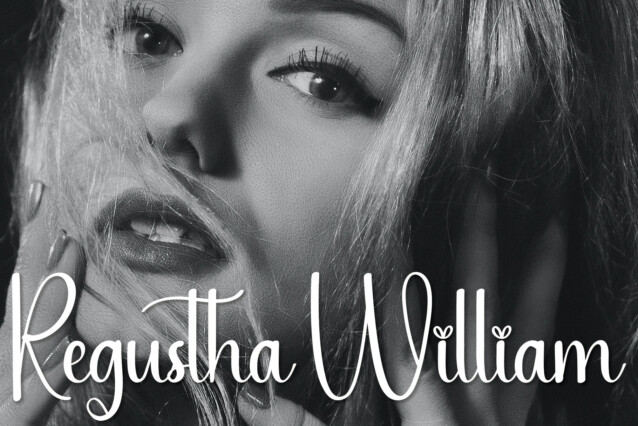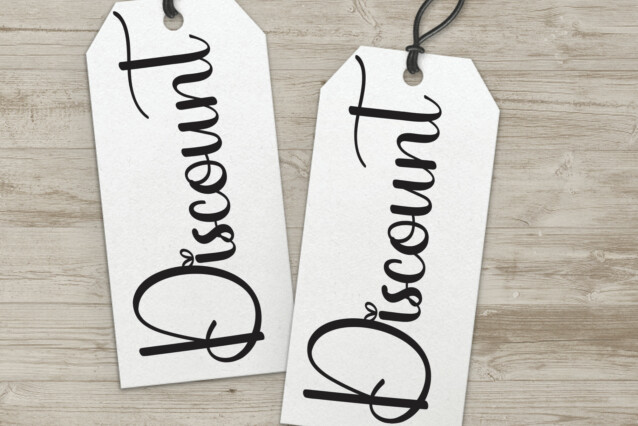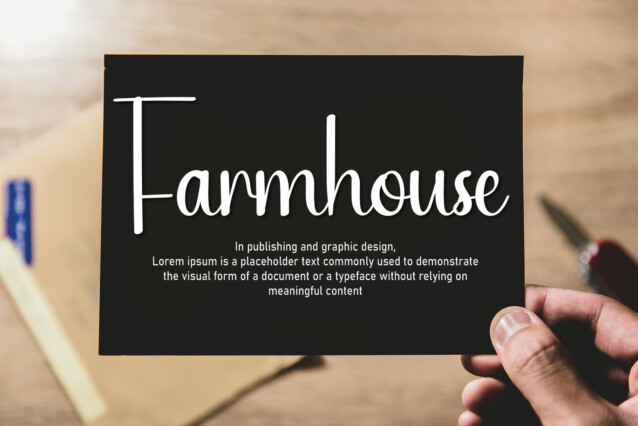
Shintia Script Font
Shintia Script Font is a cute and natural handwritten script font. Masterfully designed to become a true favorite, this font has the potential to bring each of your creative ideas to the highest level!